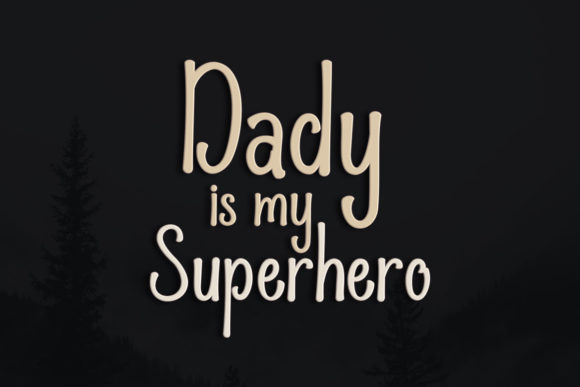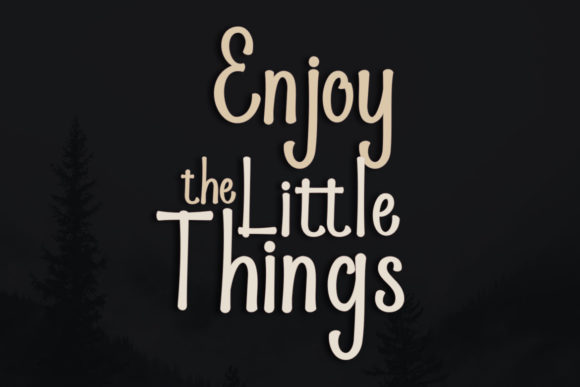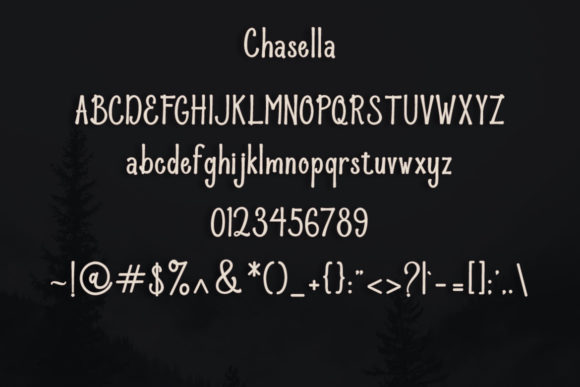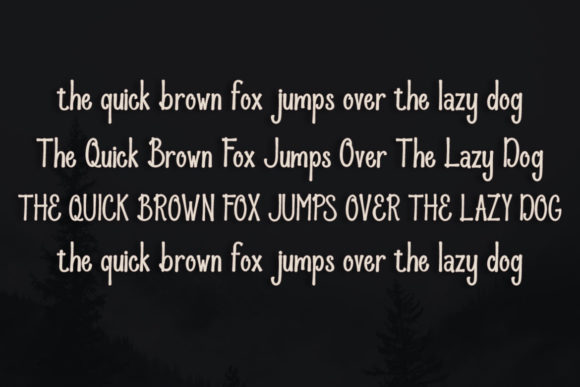
Introducing Chasella Font: The Perfect Handwritten Companion for Your Design Projects
In the world of typography, a font can make or break the aesthetic appeal of a design project. For designers, crafters, and DIY enthusiasts, finding the right font that strikes a balance between elegance and playfulness can be a daunting task. This is where Chasella Font comes into play – a simple, friendly, and versatile handwritten font designed to elevate the beauty of your projects.
The Design Philosophy Behind Chasella Font
Chasella Font was crafted with a clear design philosophy in mind: to create a typeface that is neither too thin nor too thick, but rather, a balanced and varied font that can adapt to various design needs. The creator aimed to produce a font that exudes a sense of warmth and approachability, making it perfect for projects that require a personal touch.
Key Features of Chasella Font
- Balanced Stroke Width: Chasella’s stroke width is carefully calibrated to ensure that it is not too thin or too thick, making it highly legible and visually appealing.
- Varied Letterforms: The font boasts a range of letterforms that add a touch of personality to your text, making each word and sentence unique.
- Friendliness and Approachability: Chasella’s design is inherently friendly and approachable, making it ideal for projects that aim to connect with the audience on a personal level.
- Versatility: Whether you’re working on a digital project, crafting a handmade card, or designing a poster, Chasella Font adapts seamlessly to various mediums and design requirements.
Use Cases for Chasella Font
Chasella Font’s versatility makes it suitable for a wide range of projects, including but not limited to:
- Digital Marketing Materials: Enhance your website, social media posts, and email newsletters with a personal touch.
- Handmade Crafts: Add a unique and elegant touch to your handmade cards, journals, and scrapbooking projects.
- Graphic Design Projects: Use Chasella Font in your posters, flyers, brochures, and other graphic design projects to add a touch of warmth and personality.
- Branding and Packaging: Create memorable brand identities and packaging designs that stand out with Chasella Font.
Why Choose Chasella Font?
In a sea of fonts, Chasella stands out for its unique blend of simplicity, elegance, and friendliness. Here are a few reasons why designers and crafters should consider adding Chasella Font to their toolkit:
- Easy to Read: Chasella’s balanced design ensures that your text is easy to read, making it perfect for body text and headings.
- Unique Personality: The font’s varied letterforms and friendly demeanor add a unique personality to your projects, setting them apart from the rest.
| Font Name | Chasella Font |
| Author | Amarlettering |
Chasella Font is more than just a typeface – it’s a design companion that can elevate your projects with its simple, friendly, and balanced design. Whether you’re a designer, crafter, or DIY enthusiast, Chasella Font offers a versatile and elegant solution to your typography needs. With its wide range of applications and benefits, it’s an excellent addition to any creative toolkit.